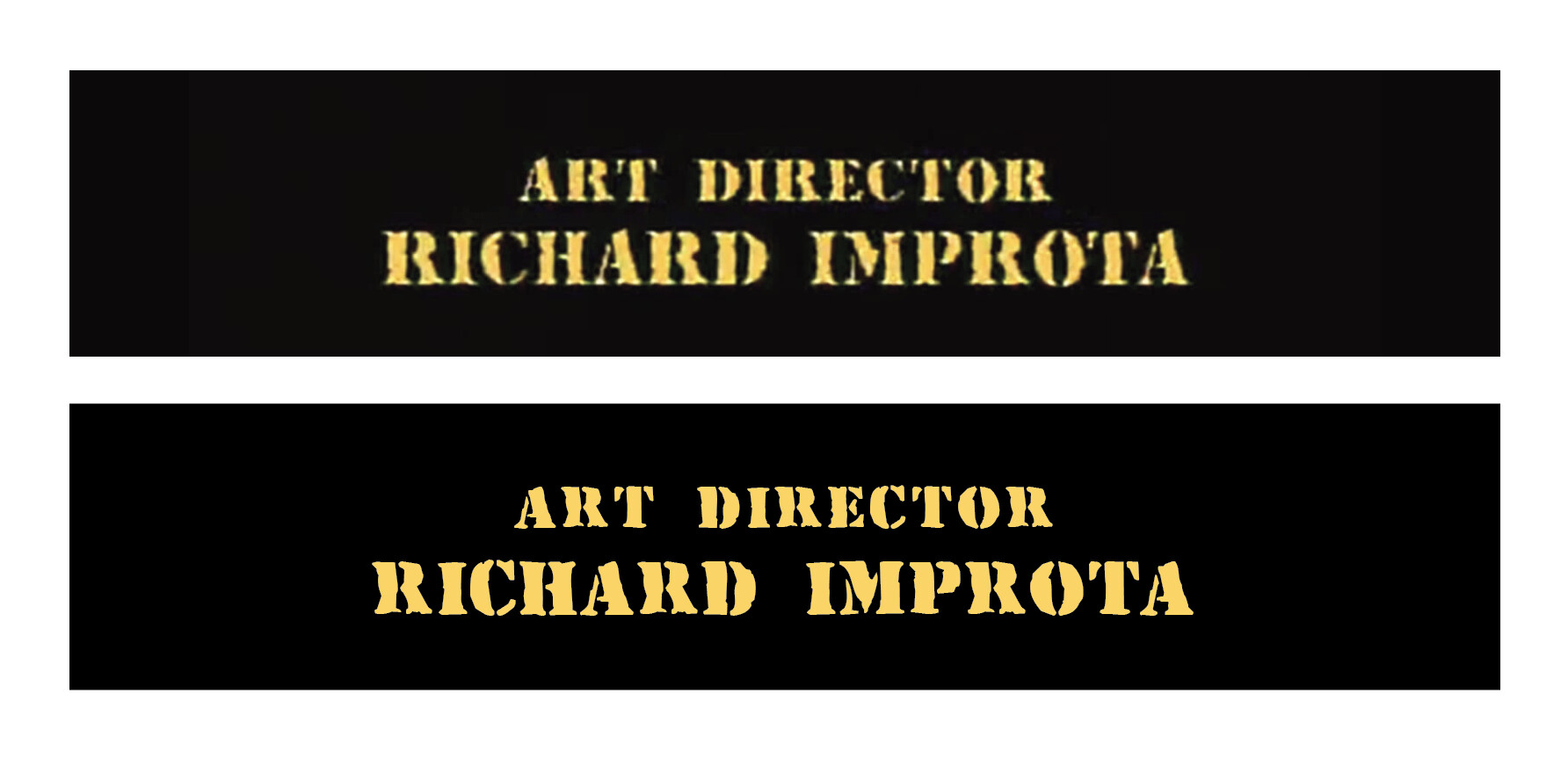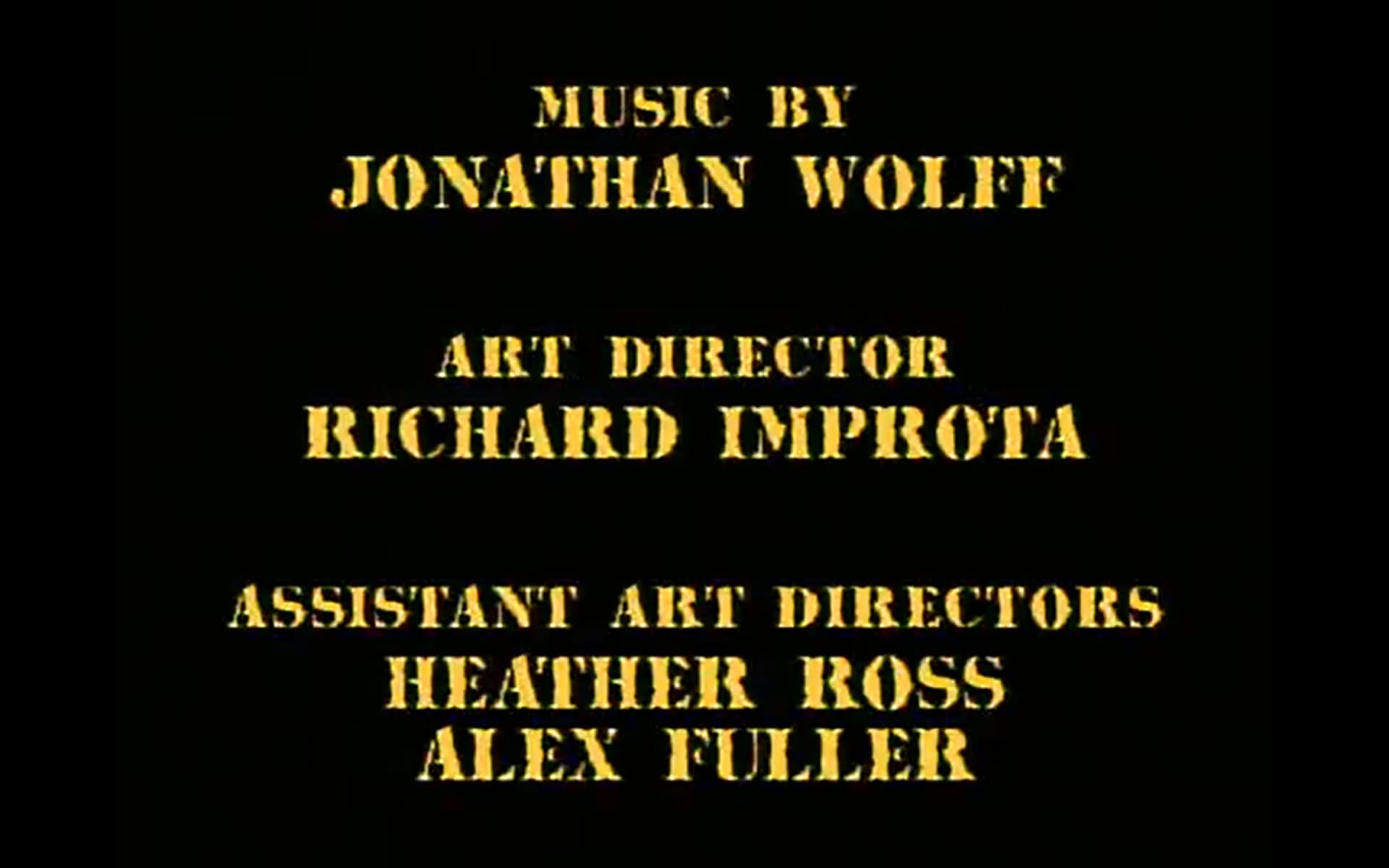
This stencil typeface was used on the sitcom Married With Children over it’s 11 season run from 1987.
At first glance it could be confused with the ‘Stencil’ font that is shipped with Windows systems. However, look at some of the characters. In Stencil, the tail of the R is more curved and in my screenshot the tail of the R is more straighter.
I have found two similar fonts so far: RufCrate and Rubber Stamp.
Would this particular font have been on a Chyron system from the 80’s?
It is RufCrate. The screen snap shows the effects of rasterizing for television. The fly-in names of the cast were set in another face, which resembled Zapf International (aka URW Antiqua or Zapf Antiqua), but there are small but distinctive differences.
Having done some more reasearch, it appears to be Rubber Stamp LET. Thomas Harvey ruled out RufCrate himself when i showed him the same screenshot.
The reason why i say it’s Rubber Stamp because on the season 11 opening credits, the actor names appear much clearer and the distressed blemish marks on these characters appear in the same places as they do when matched against the Rubber Stamp character map.